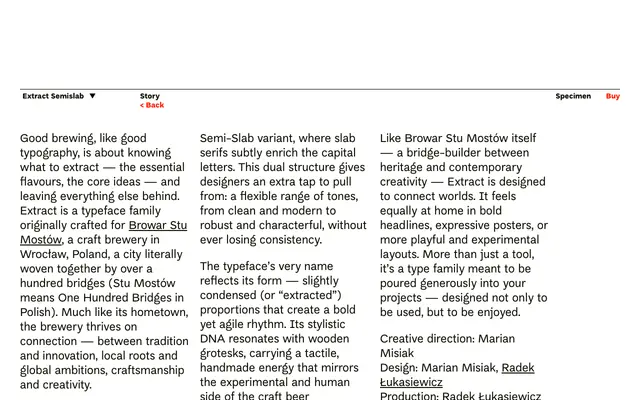
Extract Semislab
A semi-slab grotesque with slightly condensed proportions, designed for Browar Stu Mostów and drawing on wooden grotesk references.
Originally created for a craft brewery in Wrocław, this typeface pairs a sans grotesque base with slab serifs restricted to capital letters, giving designers a tonal range between clean and characterful without switching families. The condensed proportions are baked into its name and form, producing a bold but agile rhythm suited to headlines, posters and expressive layouts. Its wooden grotesk DNA gives it a tactile, handmade quality that extends its appeal beyond the hospitality sector.
Classified as a semi-slab because slab serifs appear selectively on capital letters only, blending a sans grotesque base with partial serif detailing rather than a full slab treatment. The condensed proportions and wooden grotesk references reinforce the slab-adjacent grotesque classification.